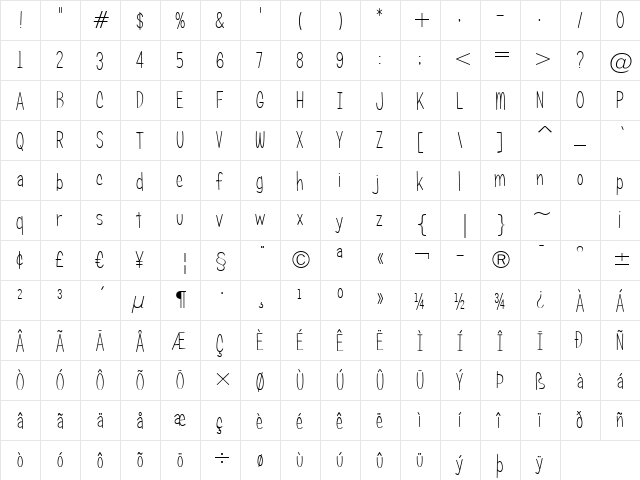
Candy Round BTN Cond Lt Regular Font Preview
Design Context for Candy Round BTN Cond Lt Typeface
Candy Round BTN Cond Lt softens its letterforms with rounded terminals, giving it an approachable, friendly quality that works well in consumer-facing and digital contexts. The delicate stroke weight brings airiness and refinement to layouts.
Well-suited to UI design, mobile interfaces, and any brand that wants approachability without sacrificing clarity.
Font Pairing: Pairs well with a rounded or humanist sans for body copy, maintaining the friendly tone without relying on Candy Round BTN Cond Lt to carry extended reading.
Pro Tip: Use Candy Round BTN Cond Lt for UI elements, app interfaces, and anywhere a friendly, approachable tone needs to be maintained without sacrificing clarity.